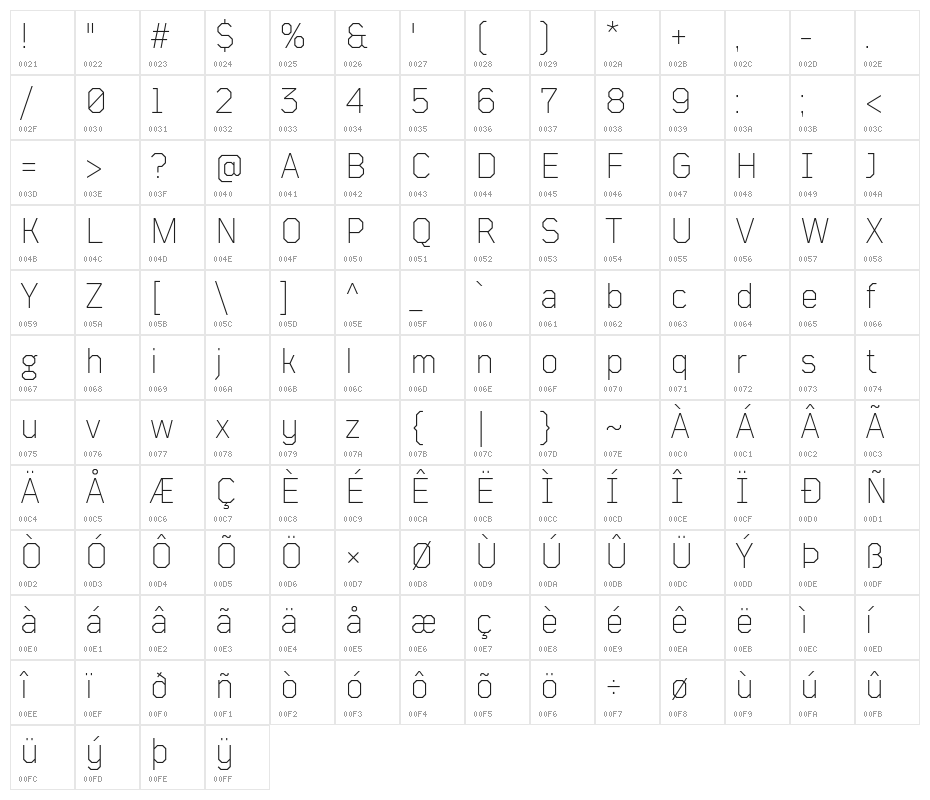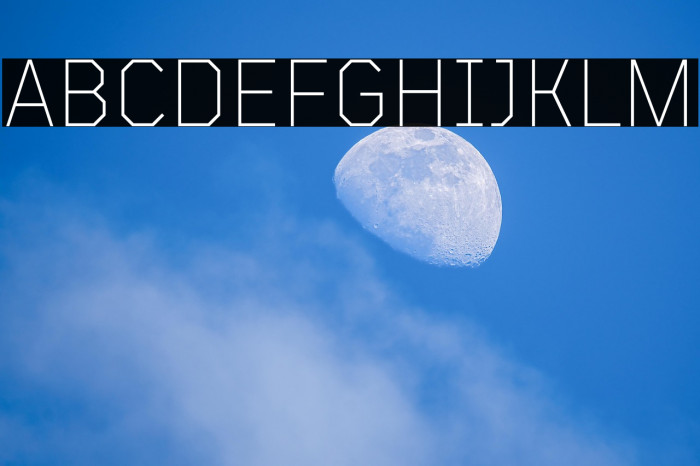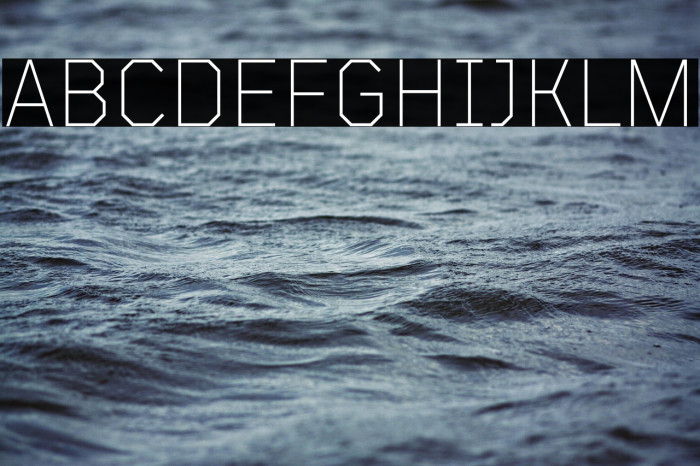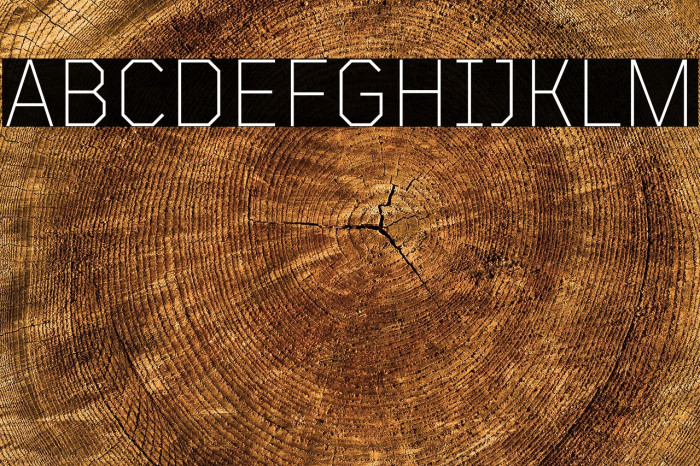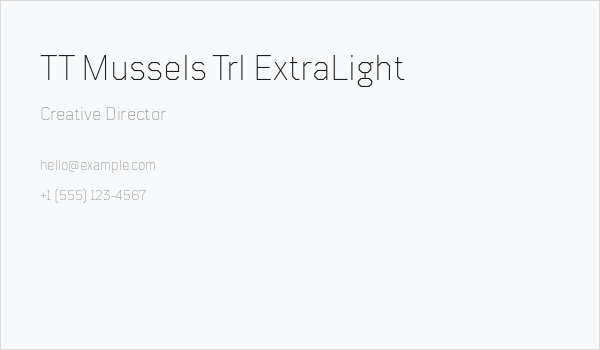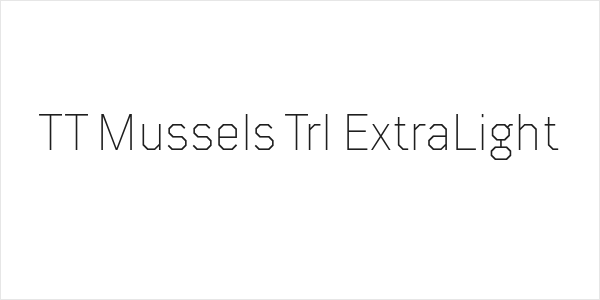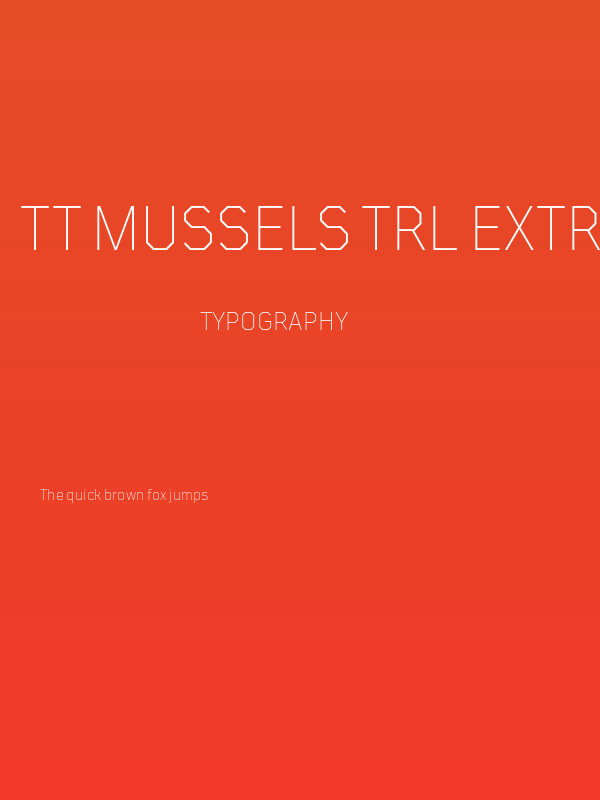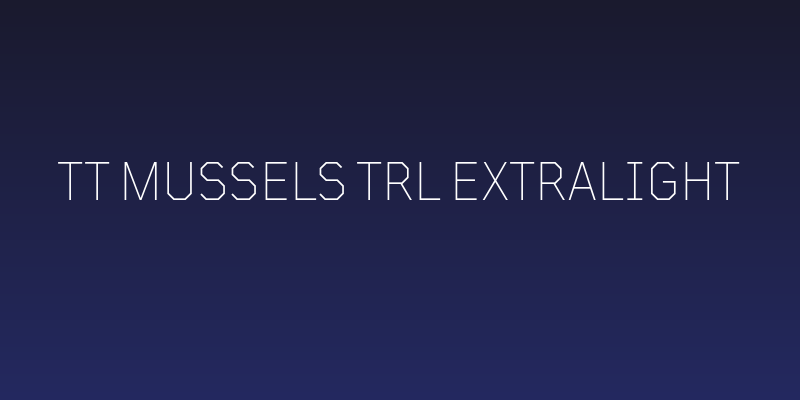
TT Mussels Trl ExtraLight Font
TT Mussels Trl ExtraLight Description
This font features a geometric and modern design with a distinct, angular appearance. The characters are constructed with straight lines and sharp corners, giving it a technical and futuristic feel. The uppercase and lowercase letters maintain a consistent height, contributing to a uniform and structured look. The numerals and special characters follow the same design principles, ensuring a cohesive visual style across all glyphs. The font's thin strokes and minimalistic approach make it suitable for contemporary and clean design projects.
| Use Case | Logos, Headlines, Digital Interfaces |
| Proposed Projects | Ideal for technology branding, modern posters, digital interfaces, and minimalist design projects. |